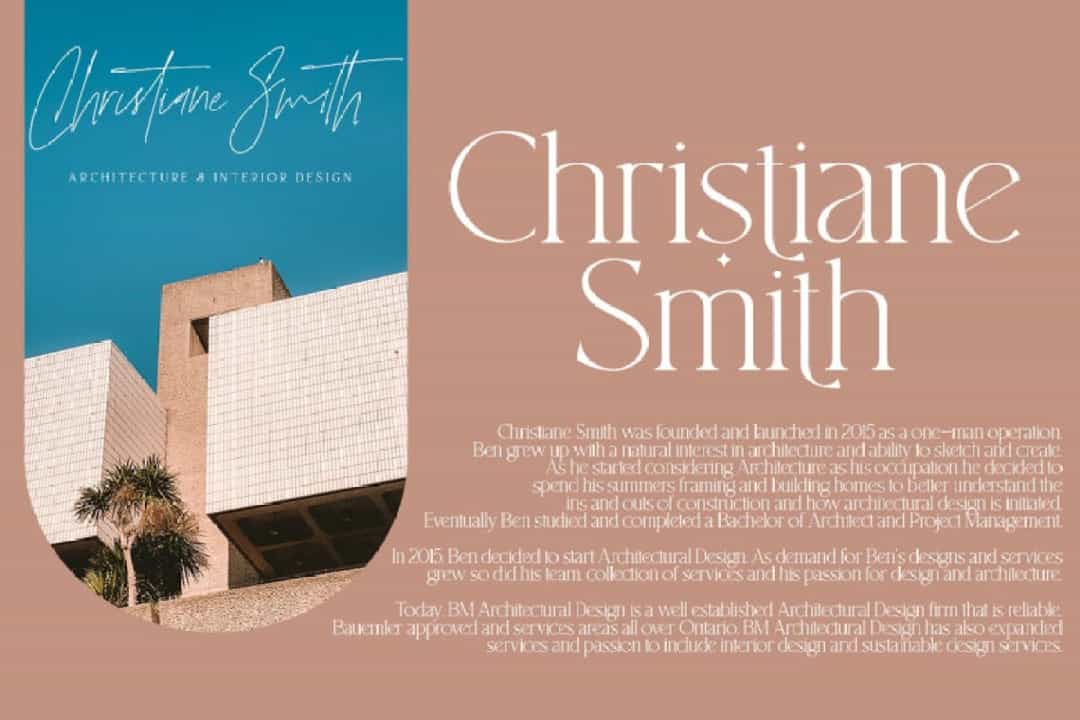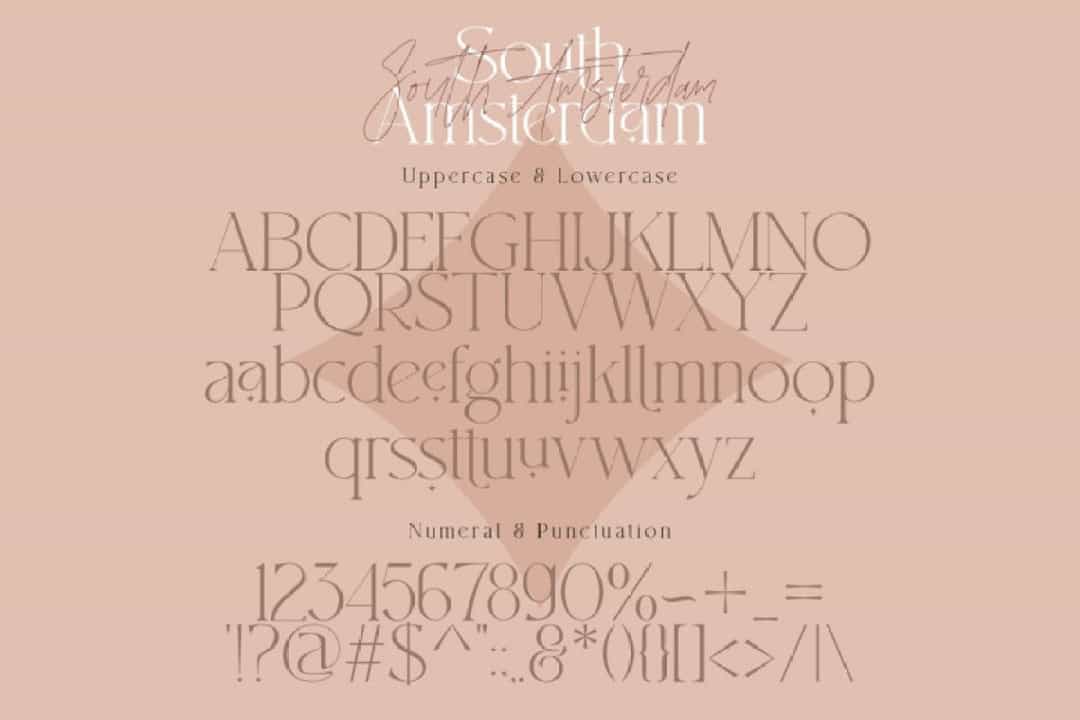
South Amsterdam Font is a font that has both serif and handwriting option to make it very flexible and also includes logo in vector and premade for quick use in magazines, invitation, product logo design, and others. It is perfect for such usage as magazine logos, invitations, and even product logo design ideas!